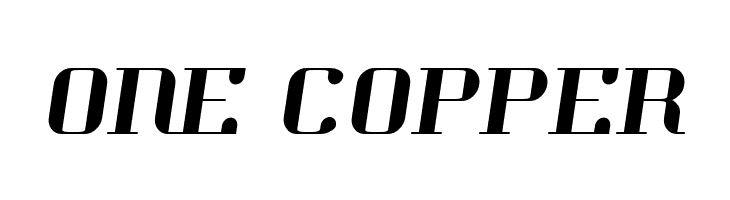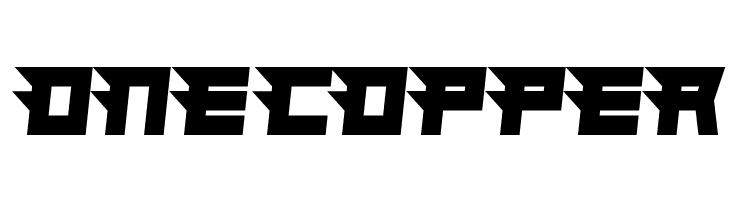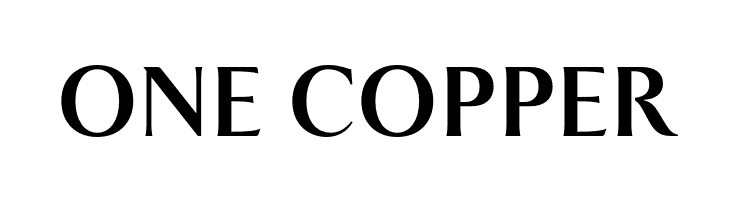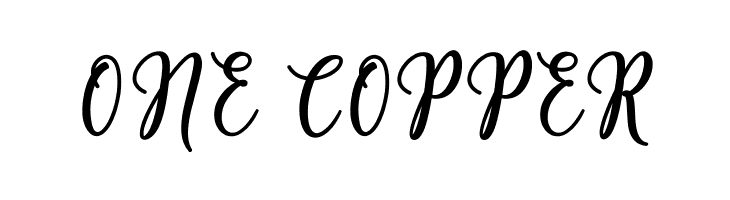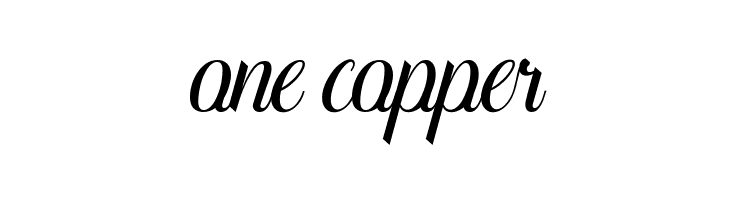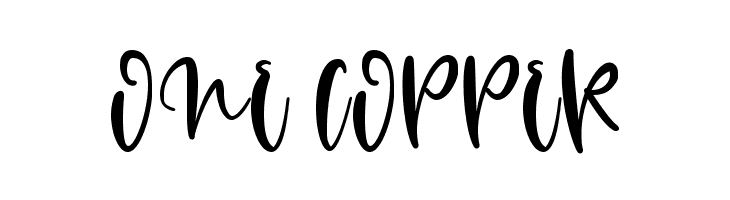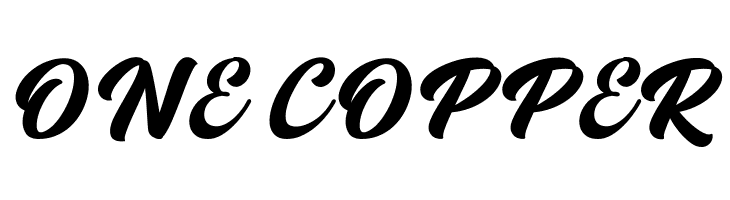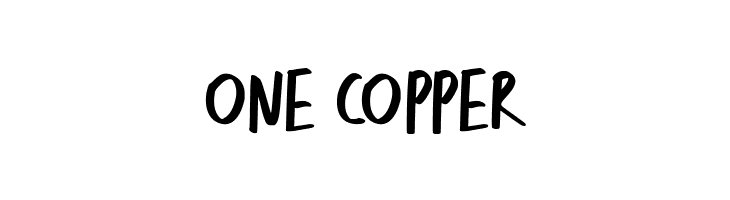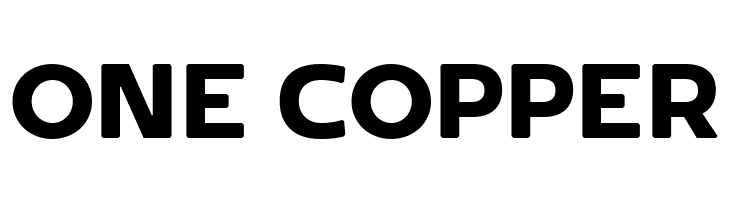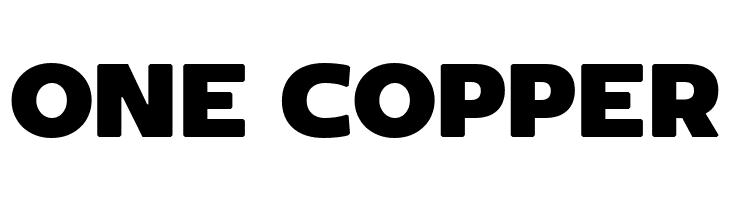
A bold, elegant script font with flowing, interconnected strokes.
A dynamic, cursive handwritten font with expressive strokes.
A modern, elegant script font with a playful, handwritten style.
A bold, playful script font with smooth, flowing strokes and a lively handwritten style.
An elegant, flowing script font with a sophisticated, handwritten style.
A graceful, handwritten script font with flowing, connected letters.
A bold and italicized font with dynamic, slanted letterforms.
A bold, playful handwritten font with a casual and dynamic style.
A bold, flowing script font with a modern, playful aesthetic.
A bold, flowing script font with elegant curves and smooth strokes.
A dynamic and expressive handwritten font with fluid, slightly slanted letterforms.
A dynamic, flowing script font with a handwritten appearance.
A playful, swash-style font with elegant, flowing letters.
A stylish, elegant script font with flowing, connected characters.
A stylish cursive font with elegant, flowing strokes and seamless character connections.
A lively, flowing script font with playful loops and a dynamic slant.
A bold, dynamic script font with smooth, flowing curves and a modern yet classic style.
A bold, angular font with a futuristic and dynamic design.
An elegant, flowing script font with graceful curves and decorative flourishes.
A dynamic and elegant cursive script font with fluid letterforms.
A bold, playful handwritten font with fluid strokes and a casual style.
A bold, brush-style font with dynamic, irregular strokes.
A lively, flowing script font with elegant cursive letterforms.
A bold serif font with classic elegance and refined details.
A bold, flowing script font with elegant curves and connected strokes.
A graceful, handwritten font with elegant, flowing characters.
An elegant and decorative script font with intricate loops and flourishes.
A bold, high-contrast serif font with a vintage flair.
A bold, rounded font perfect for impactful headlines and modern designs.
A bold, modern sans-serif font with clean, uniform strokes.
A modern sans-serif font with smooth curves and uniform strokes.
A playful and whimsical font with curly, flowing letterforms and elegant loops.
A bold, high-contrast italic font with a modern and dynamic style.